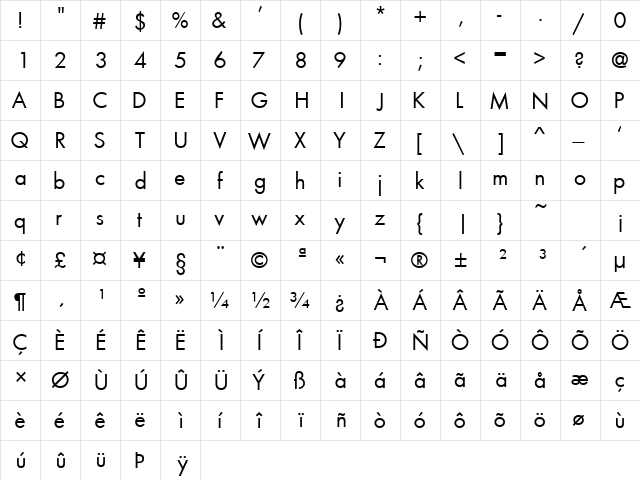
KudosRomanSSK Regular Font Preview
KudosRomanSSK Regular
Design Context for KudosRomanSSK Typeface
KudosRomanSSK takes a measured approach to typography — its balanced proportions and neutral character make it a reliable workhorse for both digital and print work.